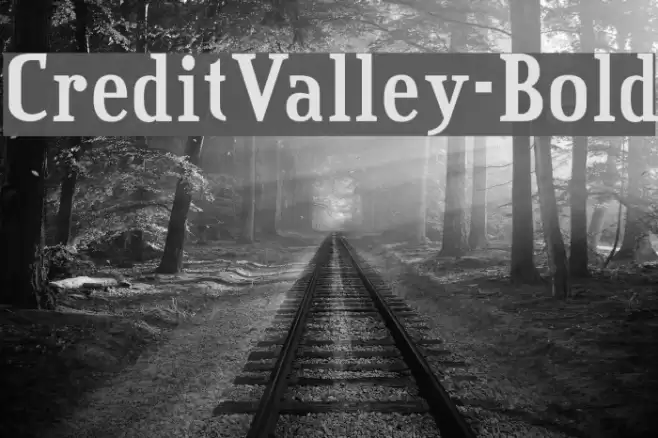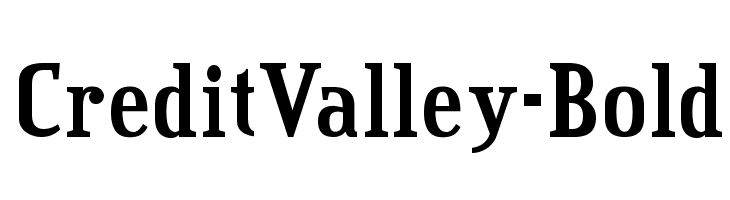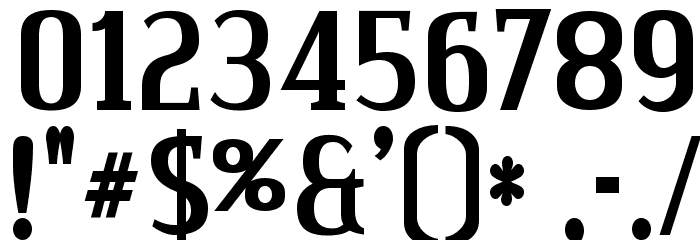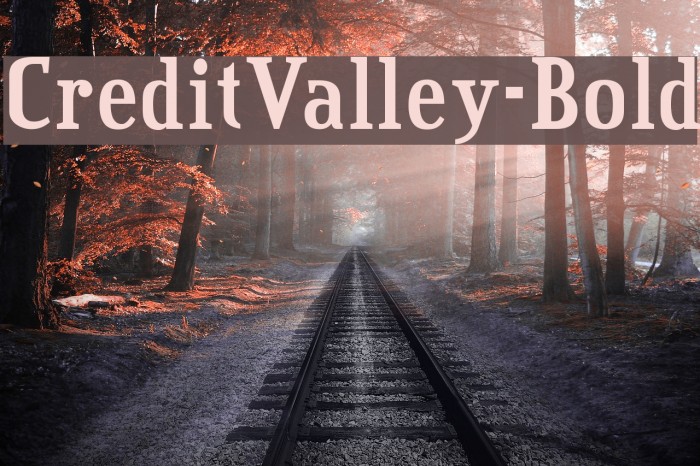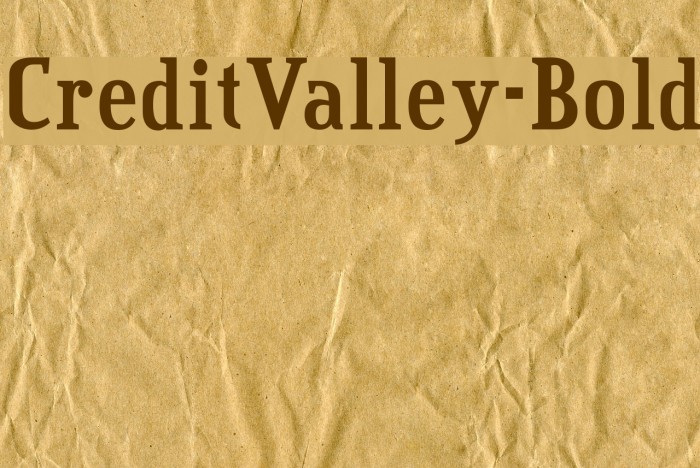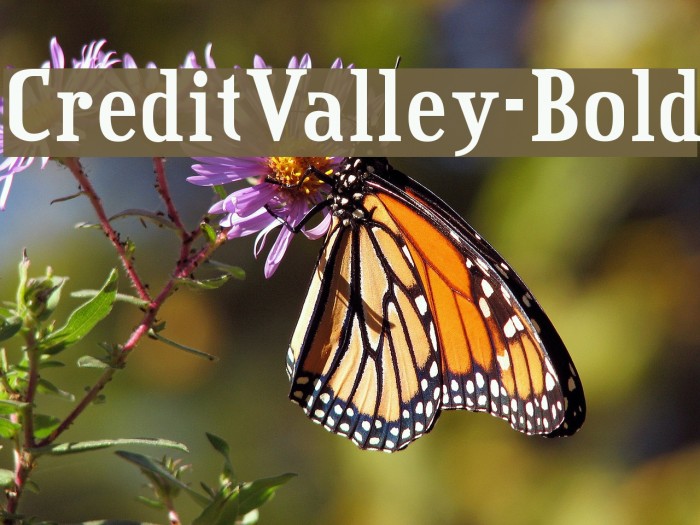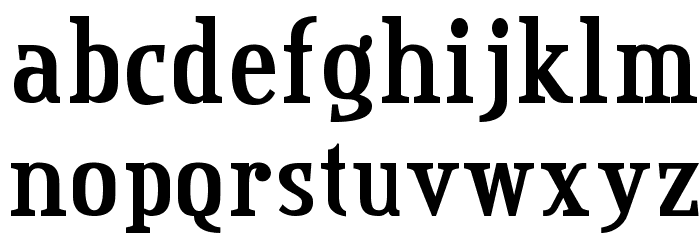
CreditValley-Bold Font
CreditValley-Bold Description
This font exhibits a bold and commanding presence with its strong, thick strokes and slightly condensed letterforms. The serifs are prominent and add a classic touch, while the overall design maintains a modern appeal. The uppercase letters are tall and assertive, while the lowercase letters are well-proportioned, offering a harmonious balance. The numerals are clear and distinct, ensuring readability. Special characters are crafted with attention to detail, enhancing the font's versatility. This typeface is ideal for making a statement in any design project.
A bold, modern serif font with strong strokes and a classic touch from Uncategorized fonts.
- Proposed Projects: Ideal for headlines, posters, branding, and editorial design where a strong, authoritative presence is desired.